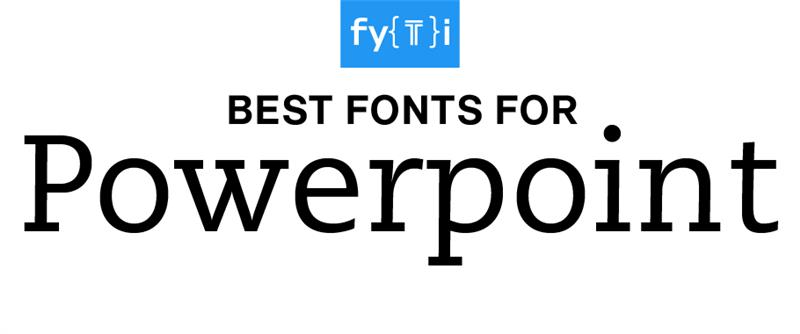
Best Fonts for PowerPoints
Best Fonts for Powerpoint
You never get a second chance to make a first impression. You can take this simple truism to far-reaching business parameters.
Business presentations are often the first things that make people aware of problems, conditions, or needs. Unfortunately, too often, authors slave over the content of a presentation, assuming that it can just be “poured” into the slides via a software application.
Presentations, however, are much more than a bunch of words squeezed into a rectangular format. Like a display headline, slides must be able to read quickly and easily. Some slides must act like a brochure and show product, or concept, features and benefits. At times, they must also provide information, much the same as a directory or parts list.
Four Things you Should Know About Fonts for PowerPoints
What is the best kind of font to use in PowerPoint or Keynote?
Most of what slides are about is typography. Illustrations and information graphics are clearly important but presentation graphics are, for the most part, made up of words set in type. And some fonts are better than others for the creation of slides. The best typeface for presentation graphics is a sans serif (because it is more legible than a serif design), bold weight (to enable high levels of visibility), of condensed proportions (when you need to get the maximum number of words in a small space).
These fonts are a safe bet, and we’ve identified some of the best of these fonts from the over 270,000 available from MyFonts If you want to take a walk on the typographic wild side, serif faces provide a much wider variety of typographic choices. Pick faces that are not too decorative, have sturdy serifs, and not too much contrast in stroke thickness. We’ve also identified several of these that will produce commanding presentations. Never, ever, set slides in a script typeface. Period.
Never use scripts
How much text should be on a PowerPoint or Keynote slide?
Limit headlines to three or four words. Much more and the reader will begin to lose interest. Headlines in presentation graphics should do one of three things:
• Introduce the information that follows
• Make a point
• Provide continuity for a series of related slides
Bullet-point copy should be 5 to 7 words in length. The words in slides should punctuate what the presenter says, not echo it. Copy should be crisp, accurate – and never cute. Cute rarely works in a business environment.
Good bullets
How much information should be put on a PowerPoint or Keynote slide?
Restrict the amount of information you include on one slide. Confine typography to four or five lines. Too much information will confuse to the reader and mean that the slide will be on the screen for a long time. (Audiences tend to become bored easily.) If you have a lot of information that must be remembered, consider a hardcopy handout to accompany the presentation.
Eliminate Clutter
Use Rules and Bullets
Use rules and bullets only when they add to the understanding. Rules can help to separate headlines from sub-points, and bullets are an aid to referencing information in series; but these are also strong graphic elements that can detract from the process of information transfer. If they begin to look too dominant, tone down bullets in size or color. Use single hairline rules instead of the bold or double variety.
Bold type, size and font changes work fine for typographic emphasizers. Italics with underlines, bold type with drop shadows, and outline fonts with internal textures make presentation graphics look more like circus posters than business communication.
How to Create Hierarchy in a PowerPoint or Keynote Slide
Type style and weight changes should be obvious. Subtleties tend to get lost in presentations. With some type families, you will have to pick font weights that are more than one level away from one another (book and bold, rather than book and medium) to achieve a strong typographic contrast. Font style changes should also be obvious. The rule of not combining two different sans serif designs clearly holds true in presentations. And, as far as serif typefaces are concerned, the subtleties of mixing two different styles are usually lost in presentations. Unless it runs counter to corporate style, stick with the basics: mix sans serif typefaces with serif designs.
Use colors that are obviously different from one another. Use dark colors for the background and warm, bright colors for the type. Avoid cool colors, like light blue and green, which reduce the vitality of your presentation.
Sans Serif Fonts
Sans Serif fonts are the safest choice for presentations. Each of the following families also contain condensed designs, for when economy of space is an issue.
ITC Avant Garde Gothic®
ITC Avant Garde Gothic is a minimalist geometric design that is highly legible and ideal for presentations that instill a sense of clarity and forward thinking. Its seminal geometric sans serif characters are available in five weights of roman, italic and condensed typefaces – a palette of designs rich enough to take on virtually any presentation demands.
Avenir® Next
The letters in Avenir are based on simple geometric shapes, softened with subtle calligraphic overtones. It’s business-like without being harsh, and easy to read from a distance. It has the straight-forward directness and simplicity of other sans serif designs, but also enjoys a little humanistic softening.
Helvetica® Now
Helvetica Now is the newest Helvetica design. A vast improvement over previous designs, it is a classic, recreated for the 21st Century – and only available from MyFonts, and its family of font providers. A solid communicator, easy on the eyes and remarkably legible, Helvetica Now is guaranteed to make PowerPoint presentations that are commanding – and memorable.
Gotham®
Gotham is known for its clean, modern aesthetic and a wide range of weights and styles, making it ideal for powerful presentations. With 66 fonts in the family, there’s little beyond the range of Gotham’s capabilities.
Knockout® (Set in No. 32 Cruiserweight)
Knockout features a unique blend of vintage and contemporary design elements – in addition to a wide range of styles and widths – making it ideal for creating impactful presentations with a bold, distinctive and inviting demeanor.
Neue Frutiger®
Neue Frutiger is newest version of the Frutiger typeface family, and has been revised and improved over its predecessor. The design combines the clear structure of a sans serif, enhanced with calligraphic overtones. This makes Neue Frutiger highly legible and welcoming – a perfect combination for presentations.
Serif Fonts
Serif fonts evoke feelings of steadiness, longevity, trustworthiness and a sense of authority.
Archer® (Set in Bold weight)
Archer combines elegance and readability. It was designed to hit just the right notes of forthrightness, credibility, and charm. Archer’s distinctive and refined shapes make it ideal for presentations. It’s eleven weights, each with a complementary cursive italic, give the family exceptional depth.
Aptifer™ Slab (Set in Medium weight)
Aptifer Slab’s generous x-height, large counters, sturdy serifs and open apertures make it an excellent which make it a clear, legible, and a powerful communicator in slide presentations. When combined with Aptifer Sans, it can take on the most complex of projects.
ITC Century® (Set in Book weight)
ITC Century is a classic, elegant design that features a balanced mix of traditional and modern letterforms. With its timeless appeal and legibility, ITC Century is an excellent choice for PowerPoint and Keynote presentations. It’s conservative, without being stuffy, and commanding without being inelegant.
PMN Caecilia® (Set in 55 Roman)
PMN Caecilia has sturdy slab serifs that give the design an honest straight-forward vibe. Their softened corners also create a sense of affability. In addition, PMN Caecilia’s proportionally large lowercase letters, also make it easy to read. The result is a solid and stylish typeface for slide presentations.
Neue Swift® (Set in Medium weight)
Neue Swift can be used just about anywhere maximum legibility is a requirement. It’s also a striking design, making it both distinctive and easy on the eyes. Swift’s round forms are relatively flat on the and bottom. This combined with long strong serifs produces a strong horizontal stress that guides the eye along a line of copy.
Sabon® Next (Set in Regular weight)
Sabon Next is patterned after classic Renaissance typefaces. The design is viewer friendly, while maintaining all the grace and elegance of some of the earliest printing typefaces. It makes a statement, without calling attention to itself. Sabon benefits from the relatively large and soft serifs which aid the reading process and give the design a friendly demeanor.